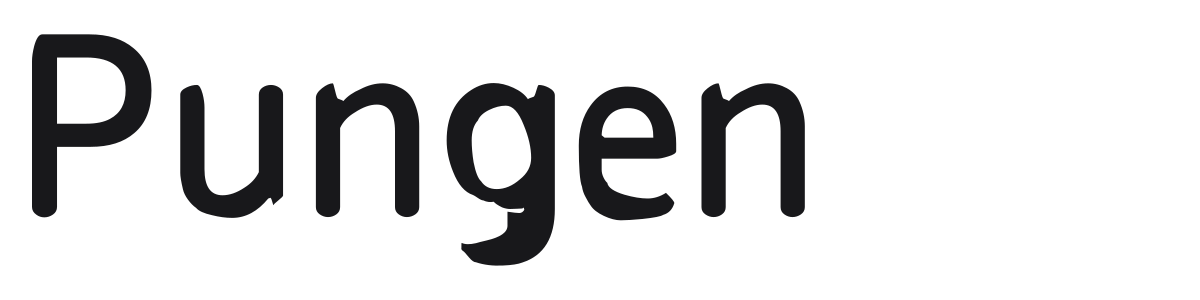
Pungen
Pungen is a bold display sans built around deliberate distortion, with holes and ink-trap-like cutouts punched into otherwise straightforward characters. The effect sits somewhere between a grunge experiment and a printed artifact gone wrong, giving text a raw, handmade energy. It works best at large sizes where the individual character disruptions are clearly readable.